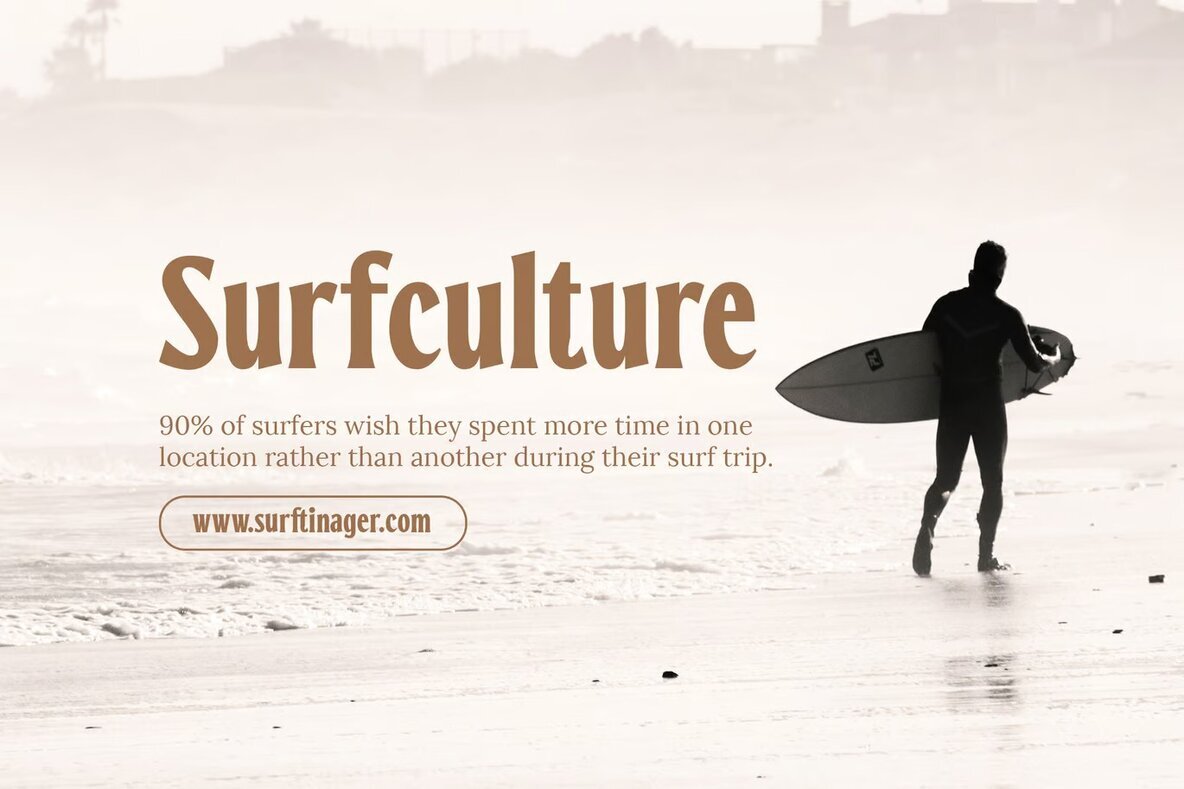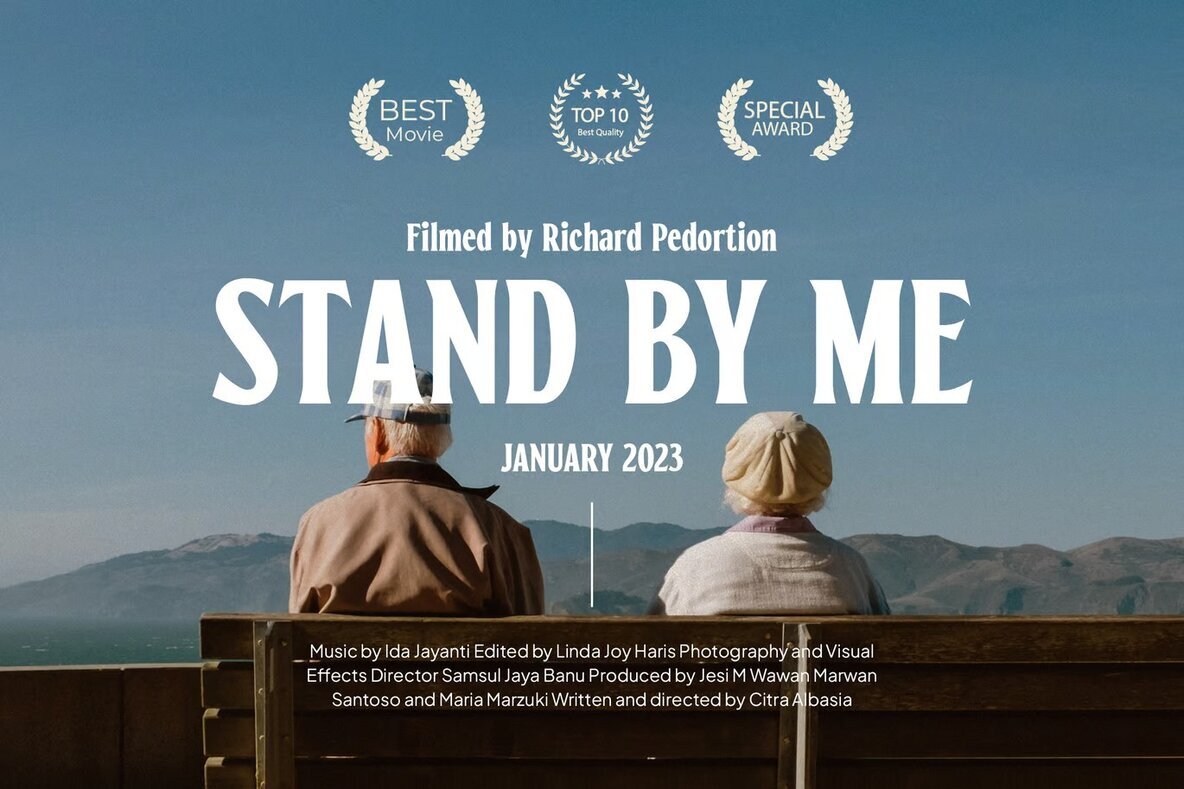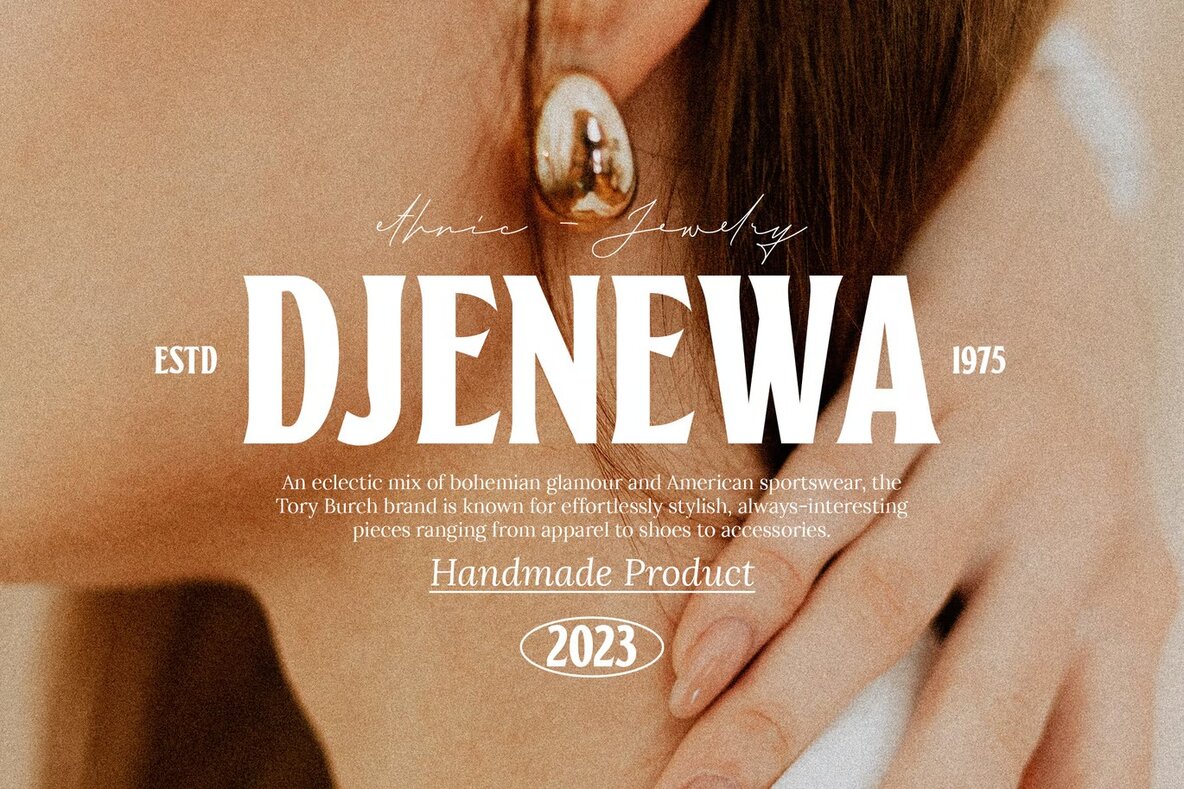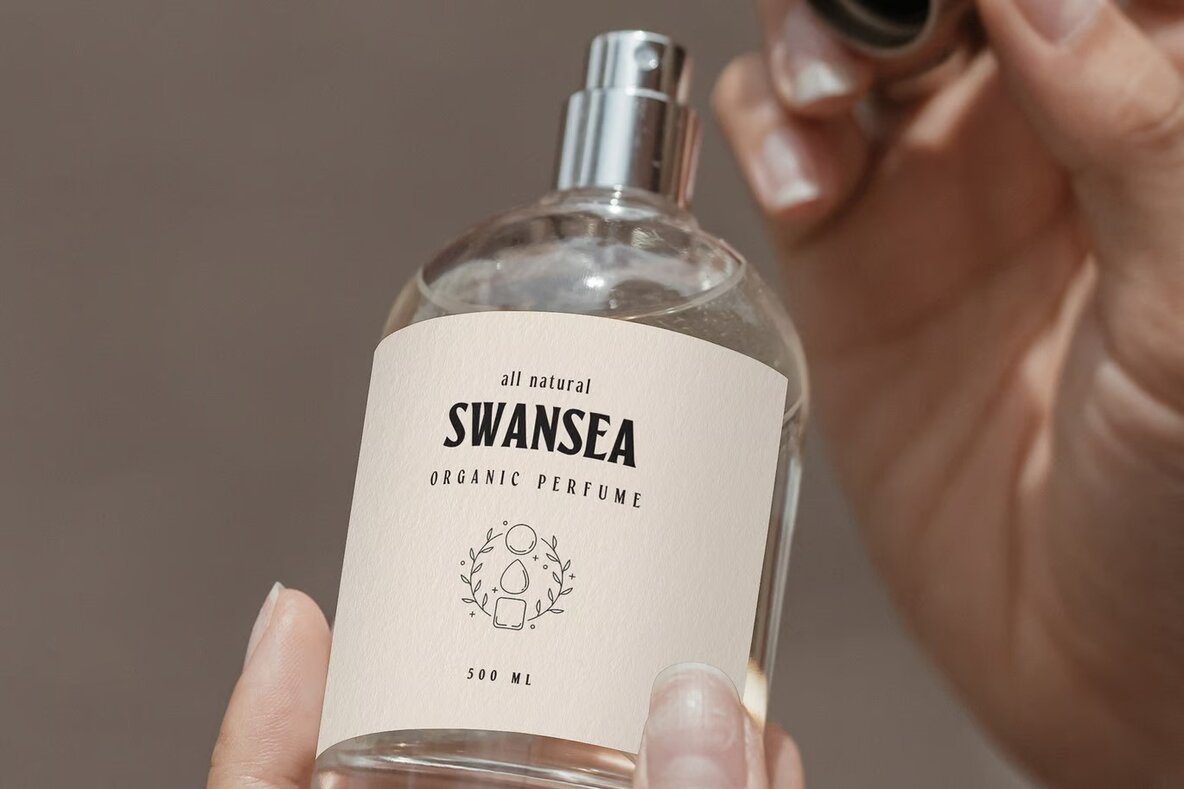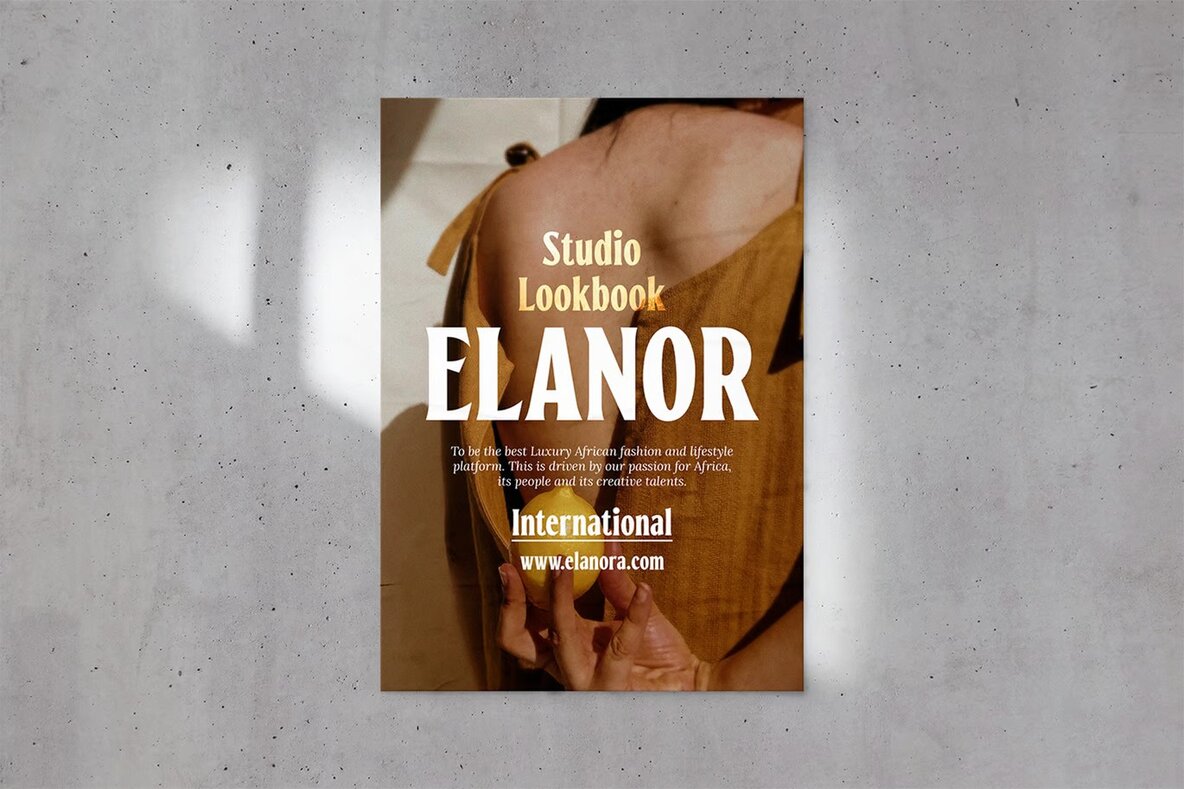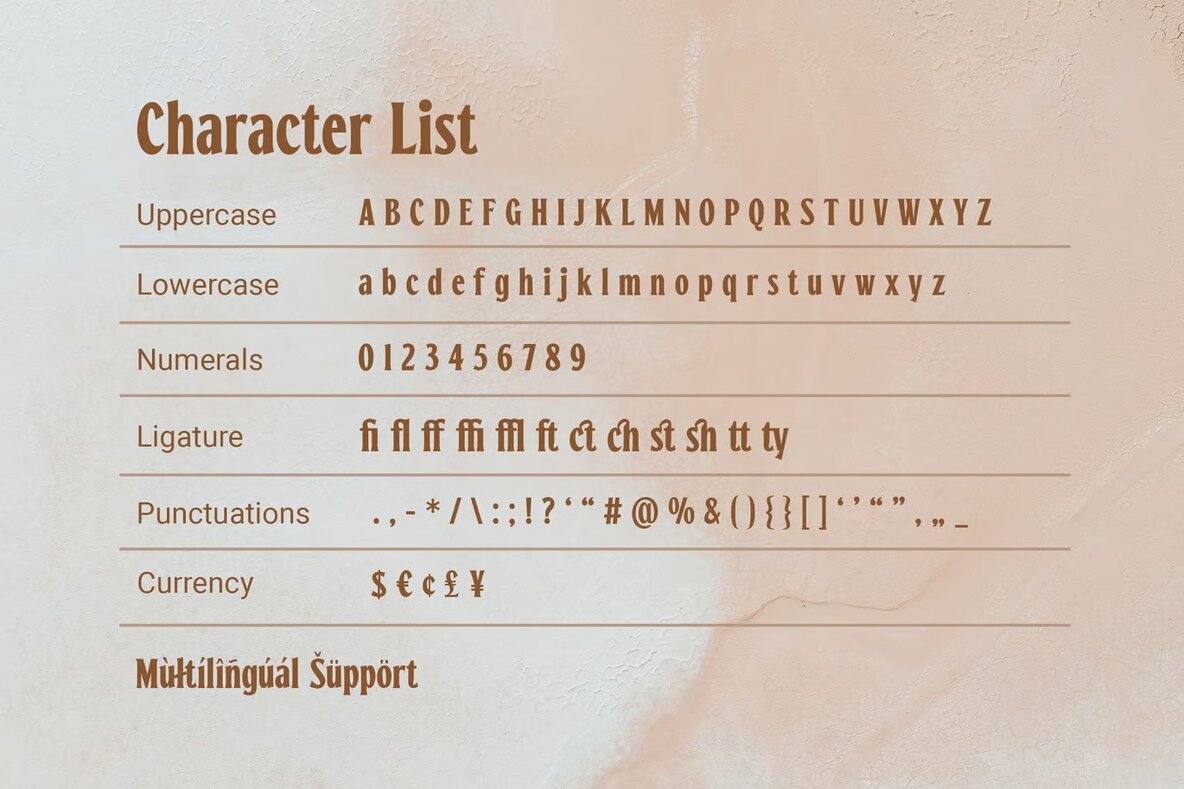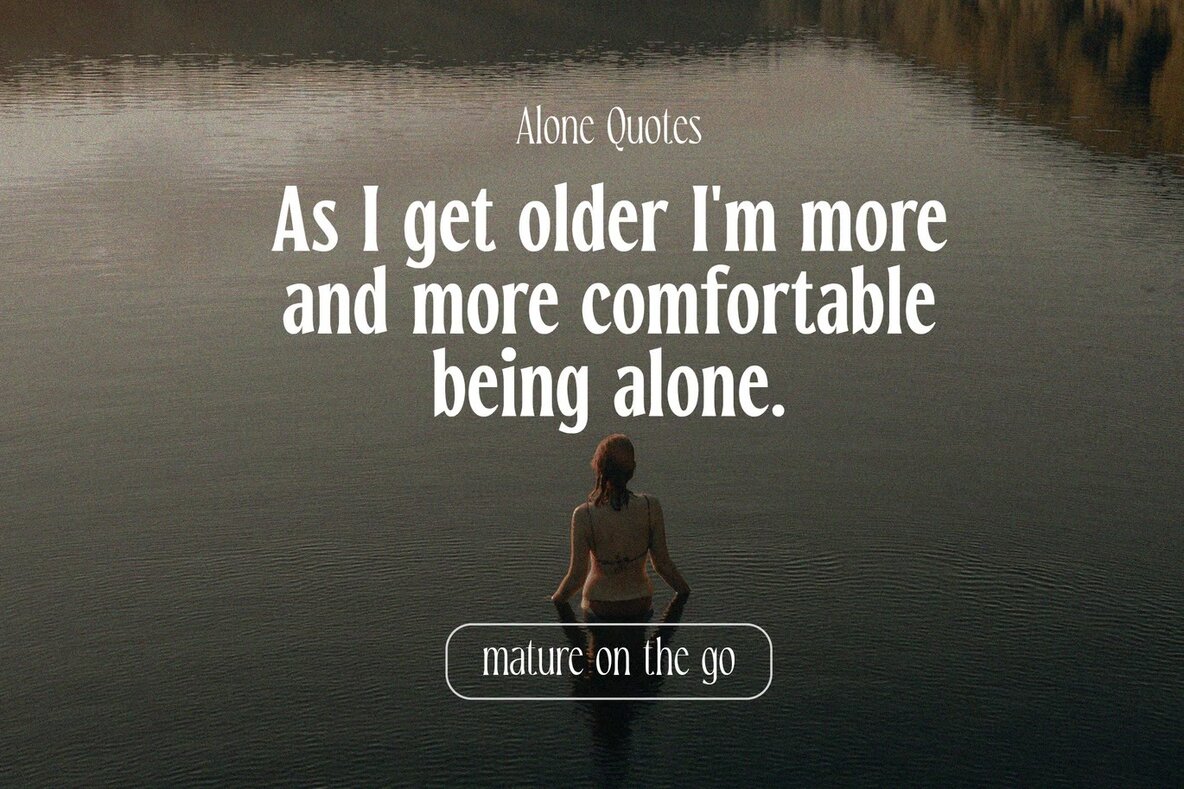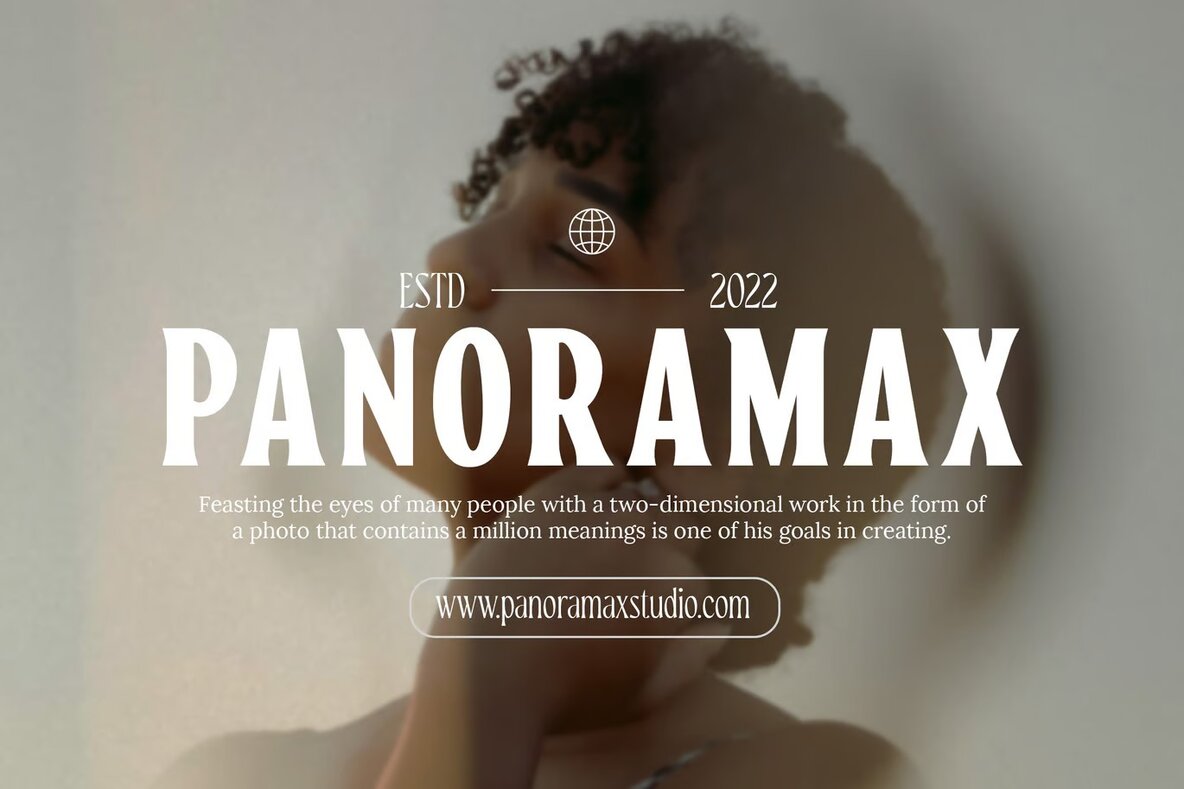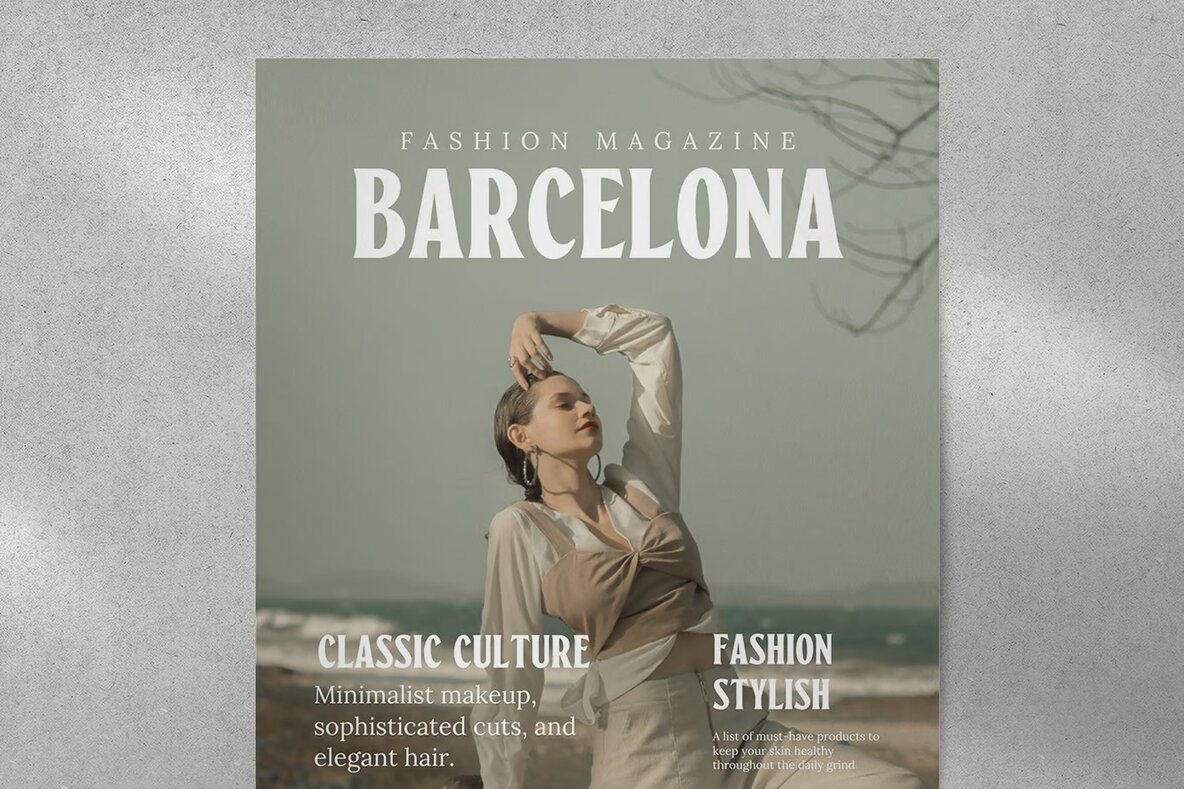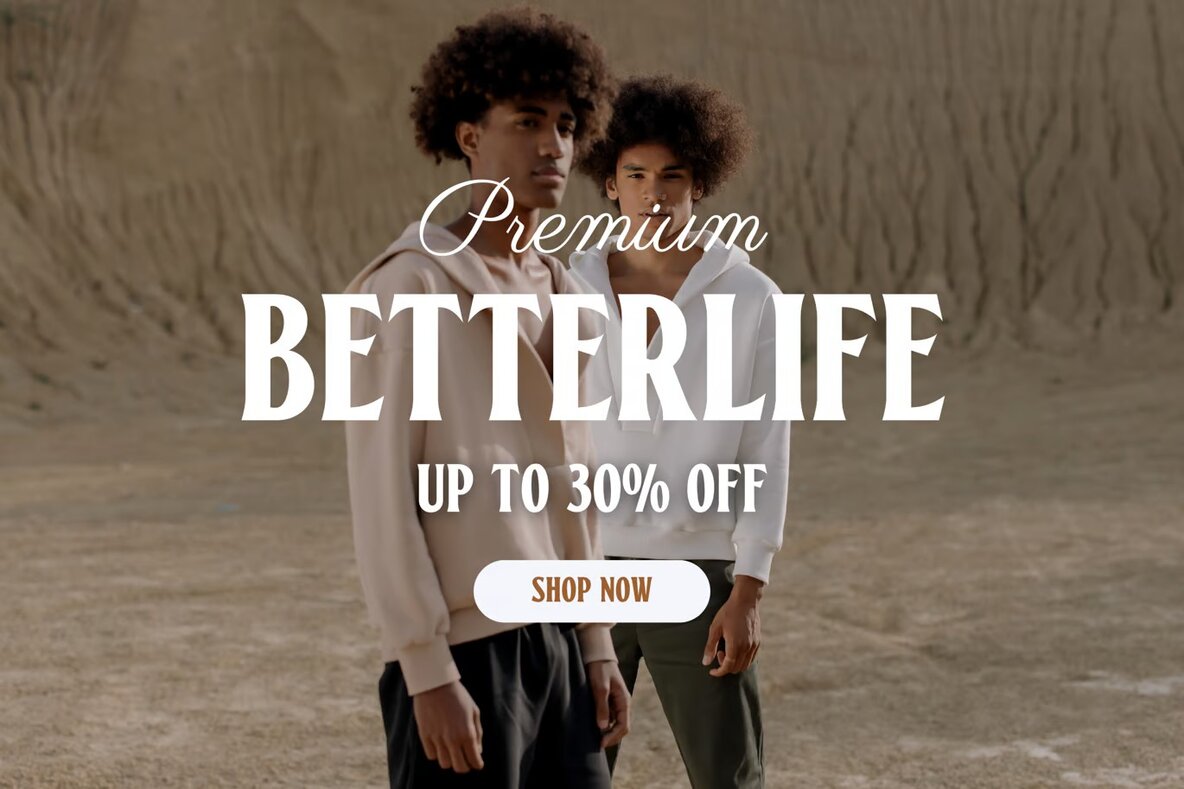
Newstalgic Font
Newstalgic Black
Newstalgic features a variety of alternate characters and ligatures, allowing you to create distinctive typography designs. This versatile font is ideal for a wide range of design needs, including logos, branding, modern advertising, and vintage garage themes. It also suits adventure and mountain hiking brands, hardcore music-related designs, animation or movie titles, retro summer posters, and book or novel covers.
Beyond that, Newstalgic excels in editorial designs, website/blog layouts, and card designs. The font's adaptability makes it perfect for any typography project, ensuring your work stands out with a blend of classic and modern styles. Leverage its unique qualities to add a nostalgic yet fresh touch to your creative projects.